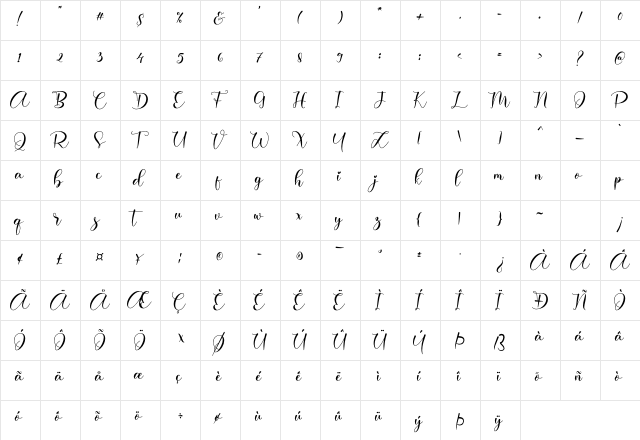
Ainsley Regular
| Designer | Nissa Nana |
Design Context for Ainsley Typeface
Ainsley takes a measured approach to typography — its balanced proportions and neutral character make it a reliable workhorse for both digital and print work.
Pro Tip: Use Ainsley in both headline and body roles to test its range before committing to a single application.